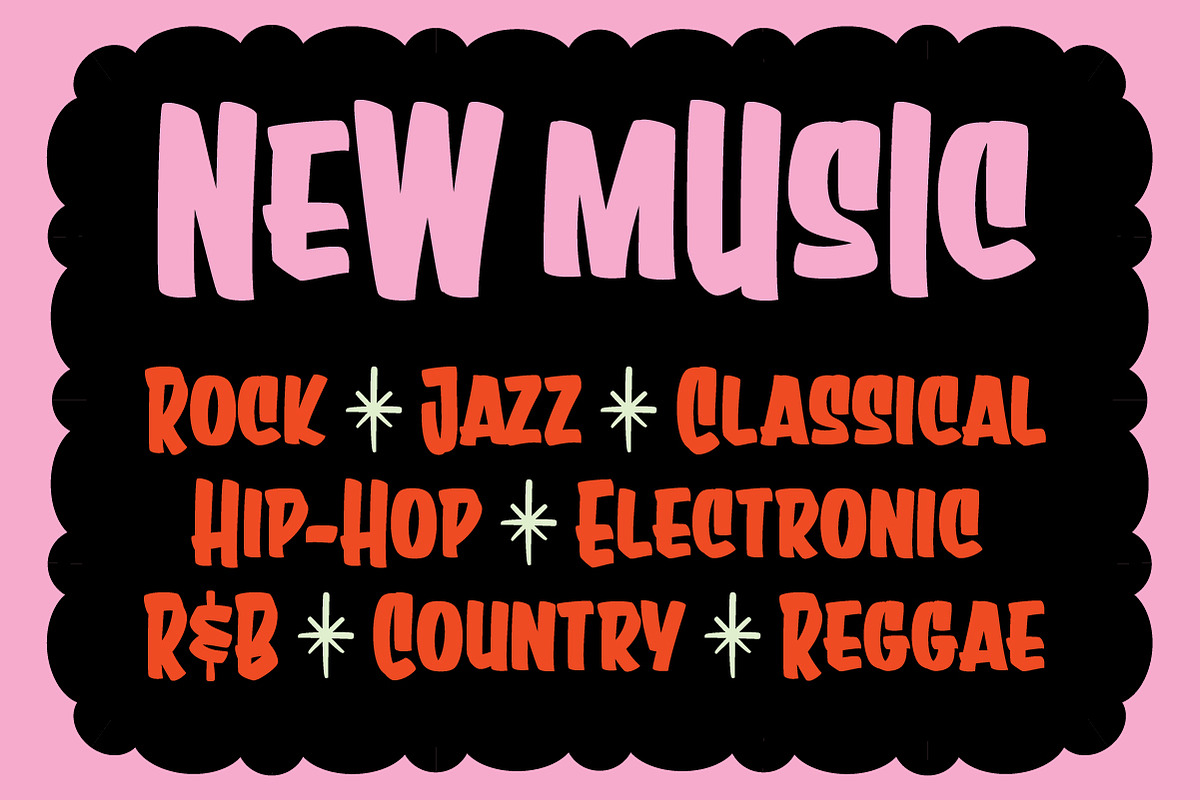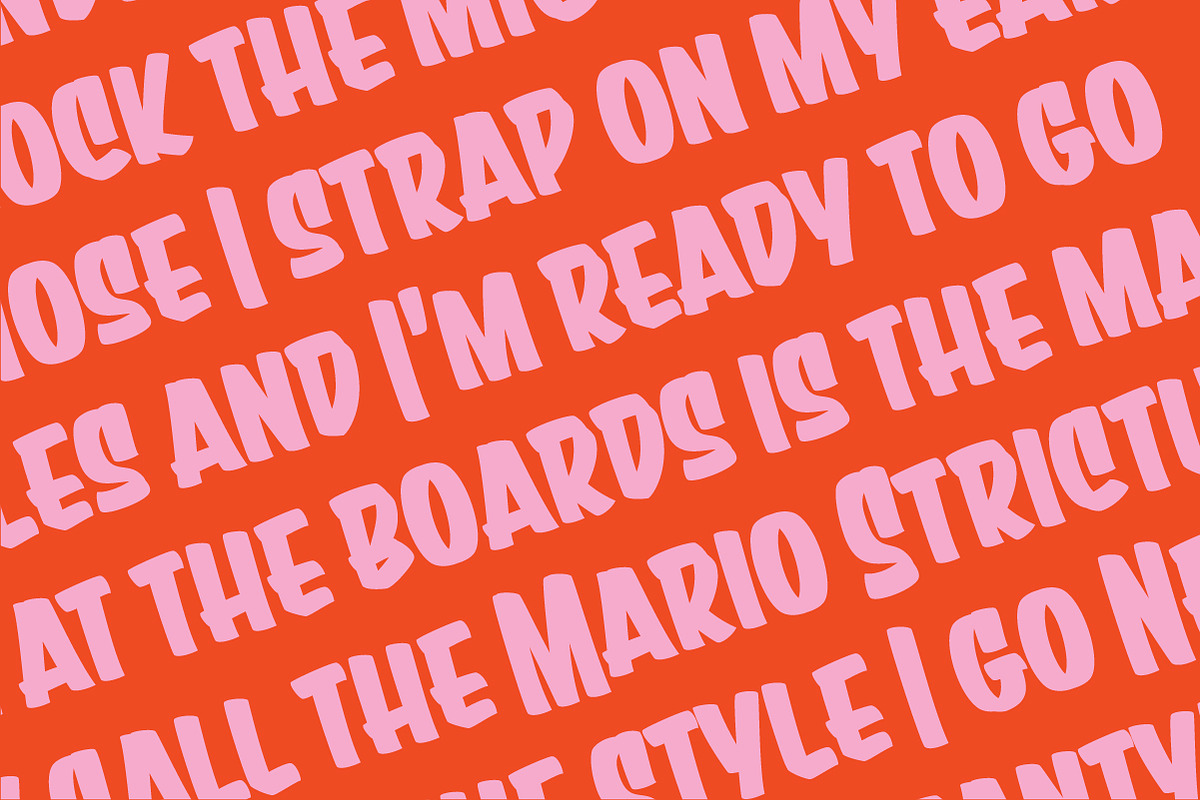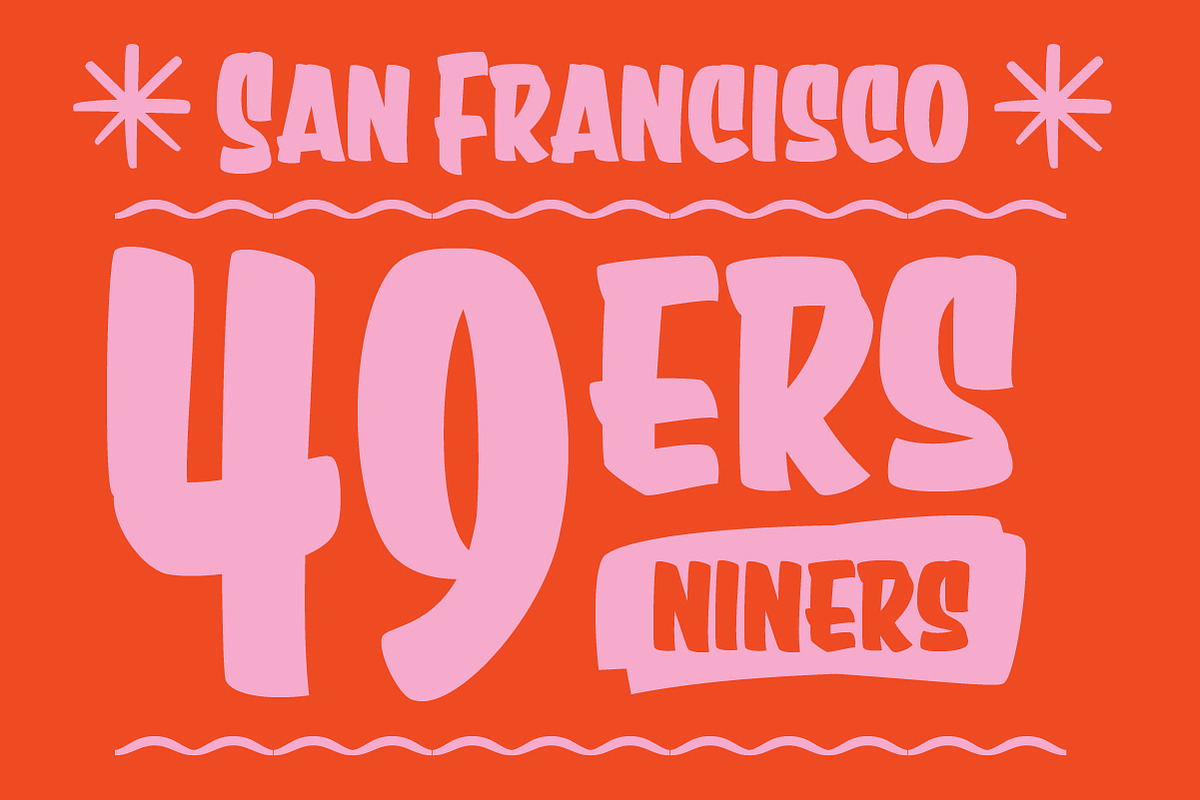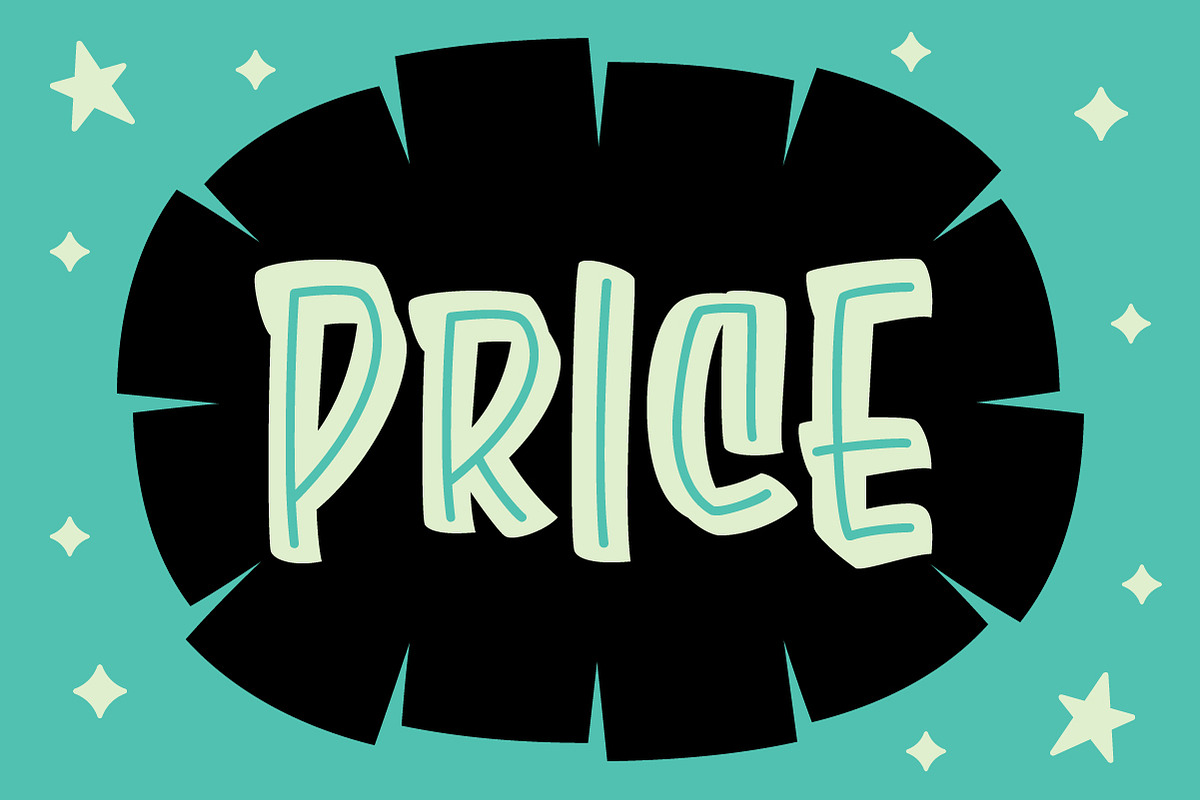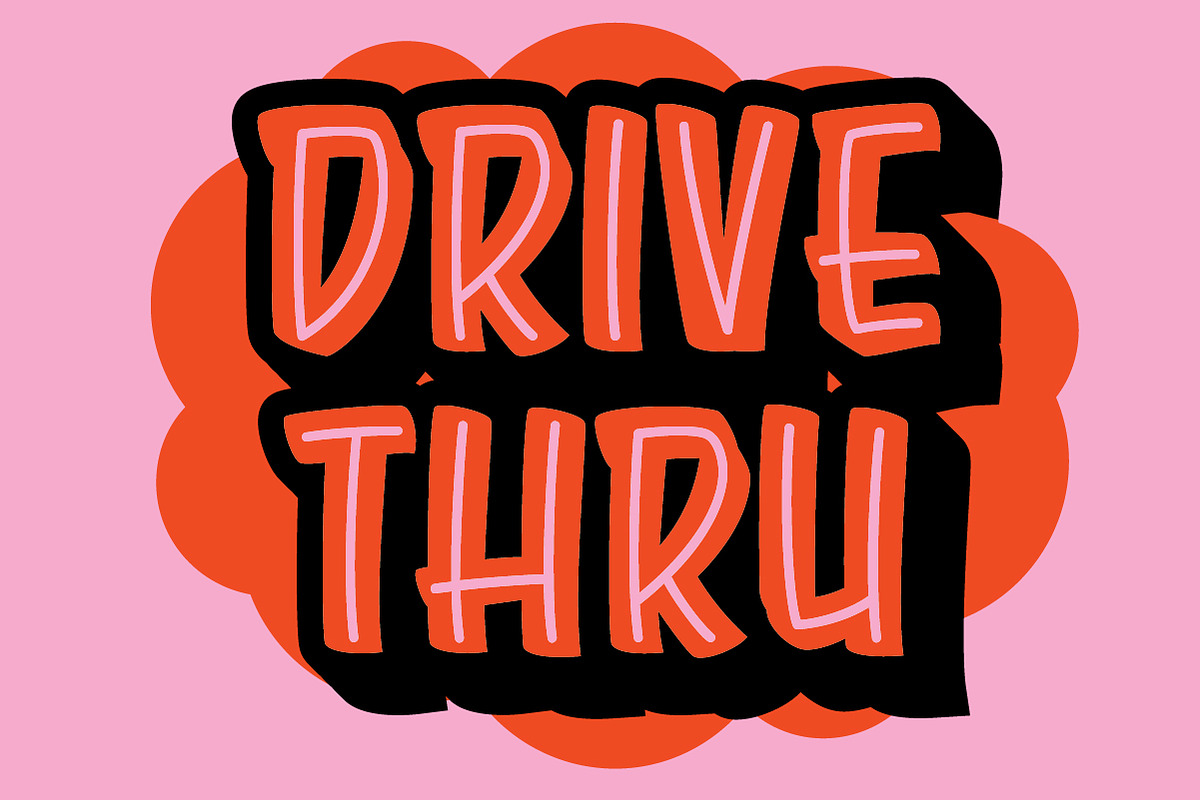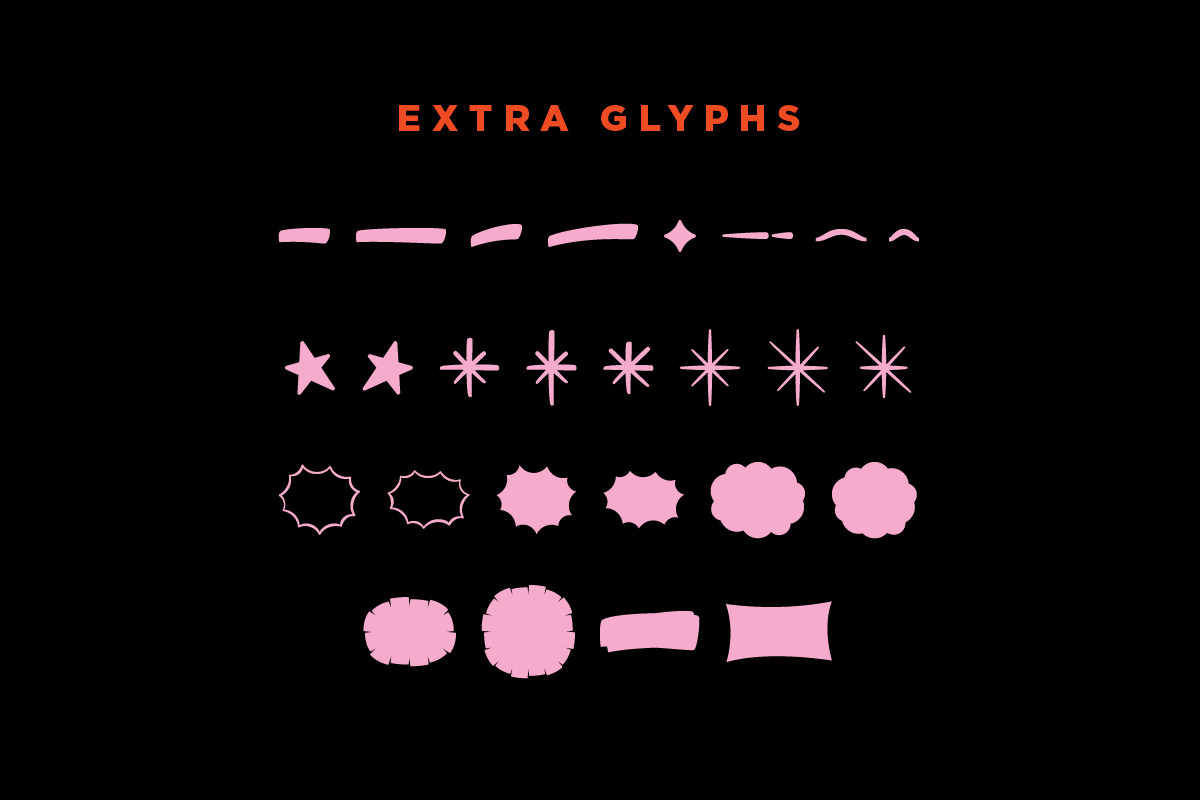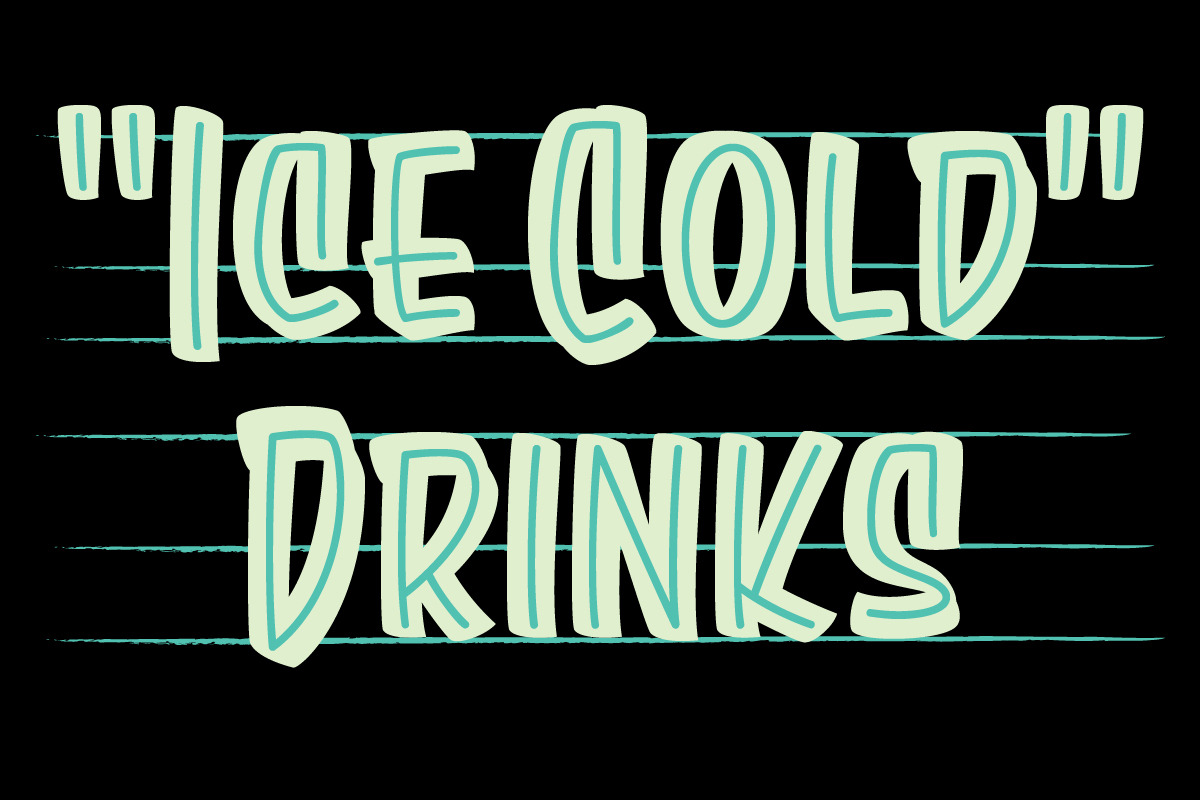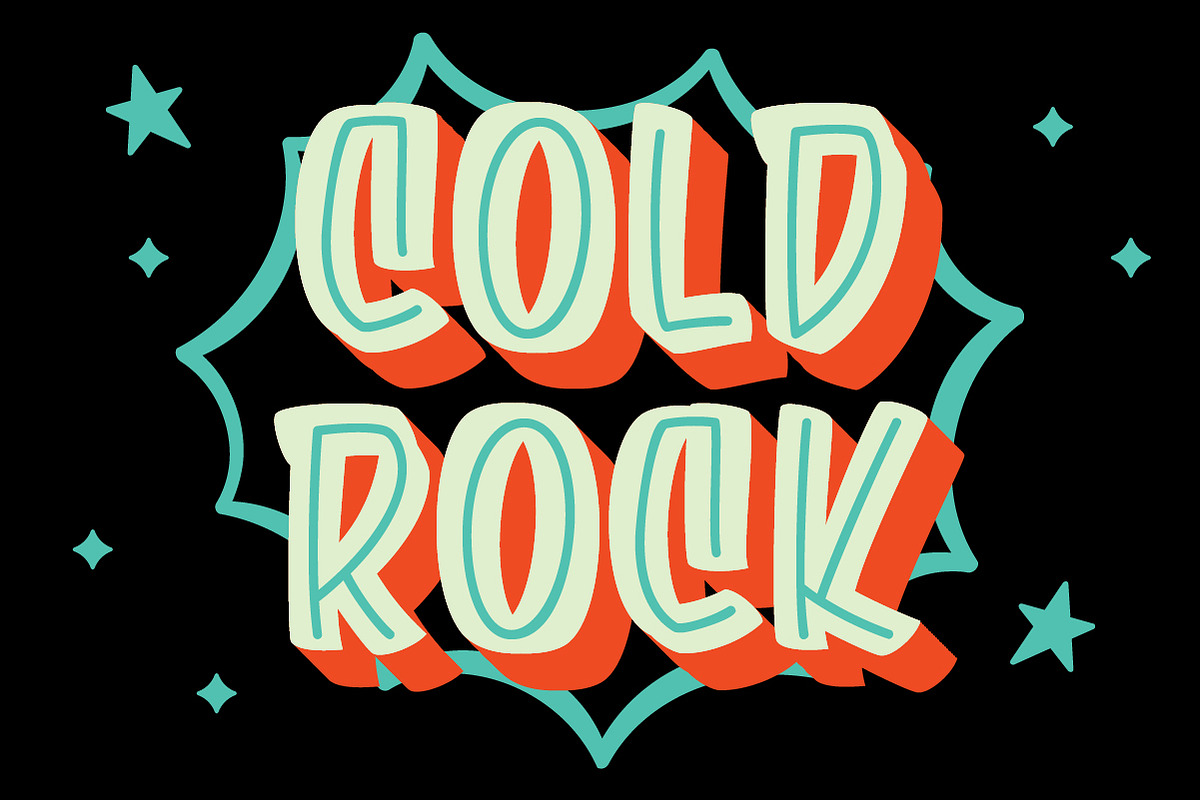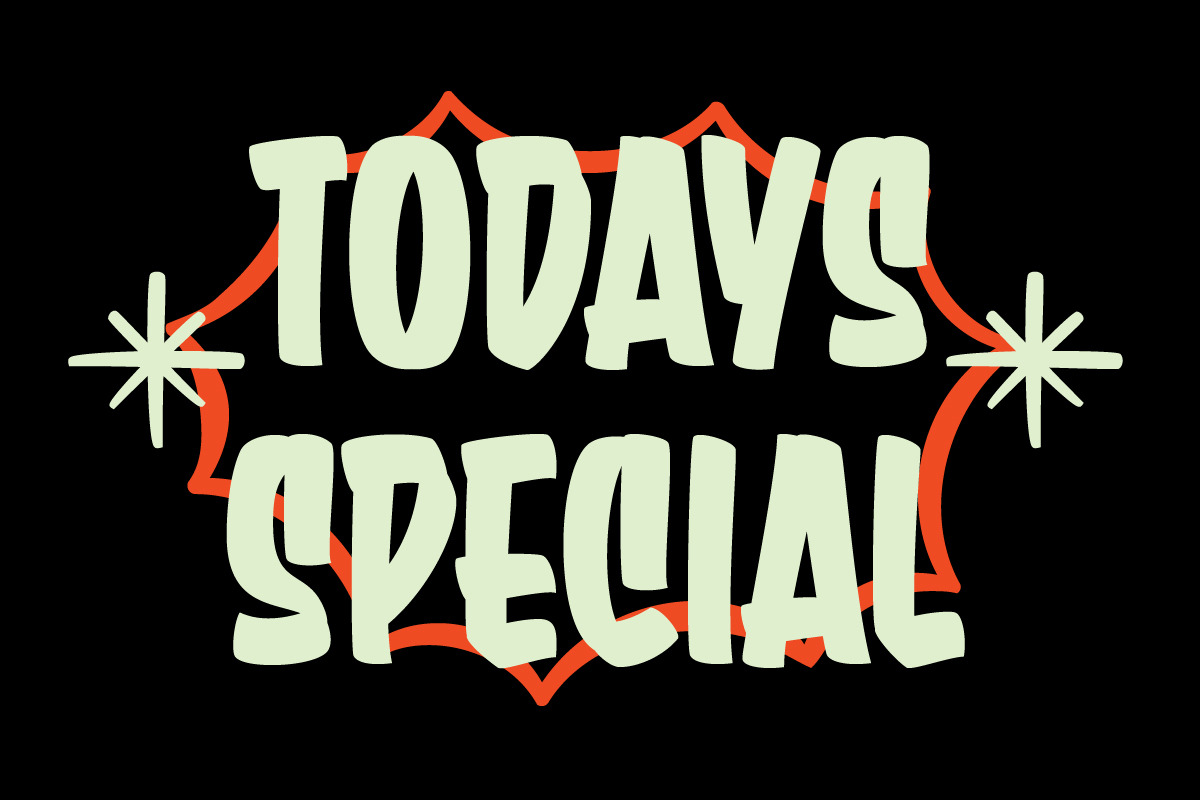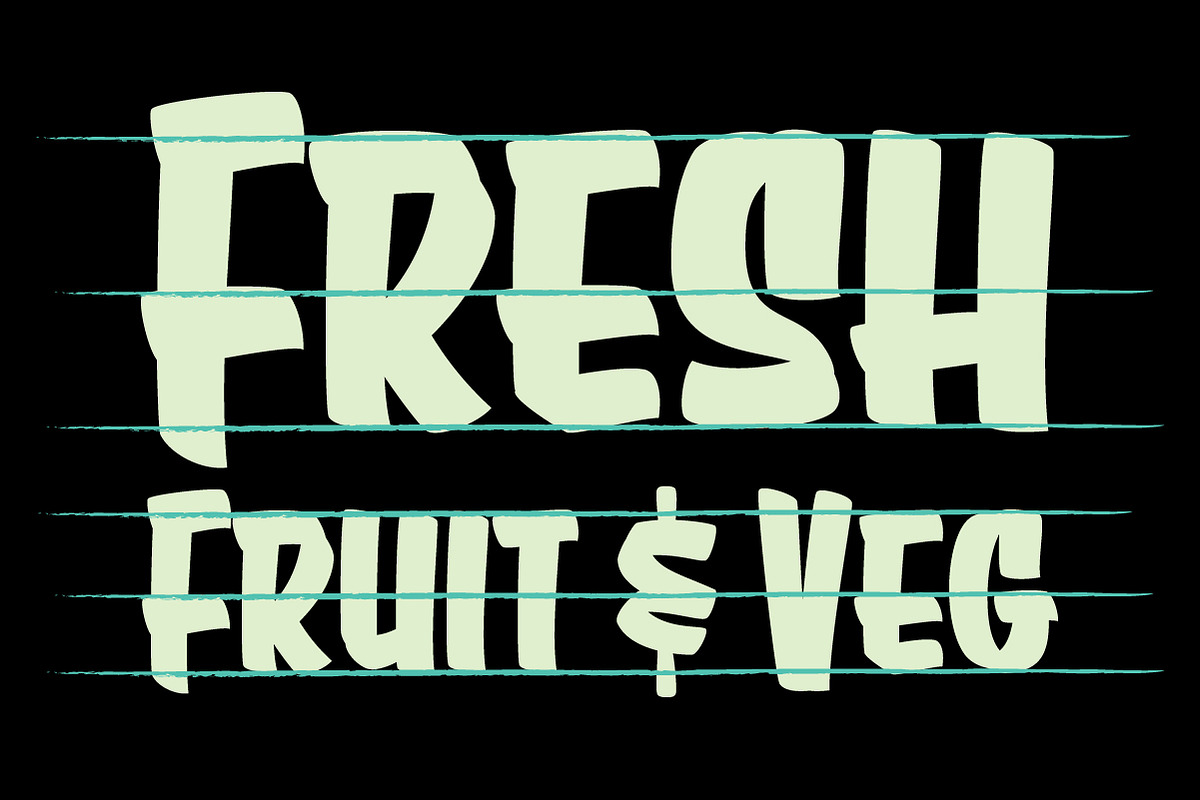
Sure Shot Casual Brush Script
Sure Shot is a bold, mid-century brush script inspired by the raw energy of a sign painter’s hand-painted sale signs and show cards from a golden era of retail. With confident strokes, natural imperfections, and eye-catching letterforms, it feels like it was brushed straight onto a shop window in 1958. Built to grab attention without sacrificing character, Sure Shot hits you straight between the eyes. Perfect for designers looking to inject warmth, nostalgia, and a hit of old-school hustle into branding, packaging, and promotional work.